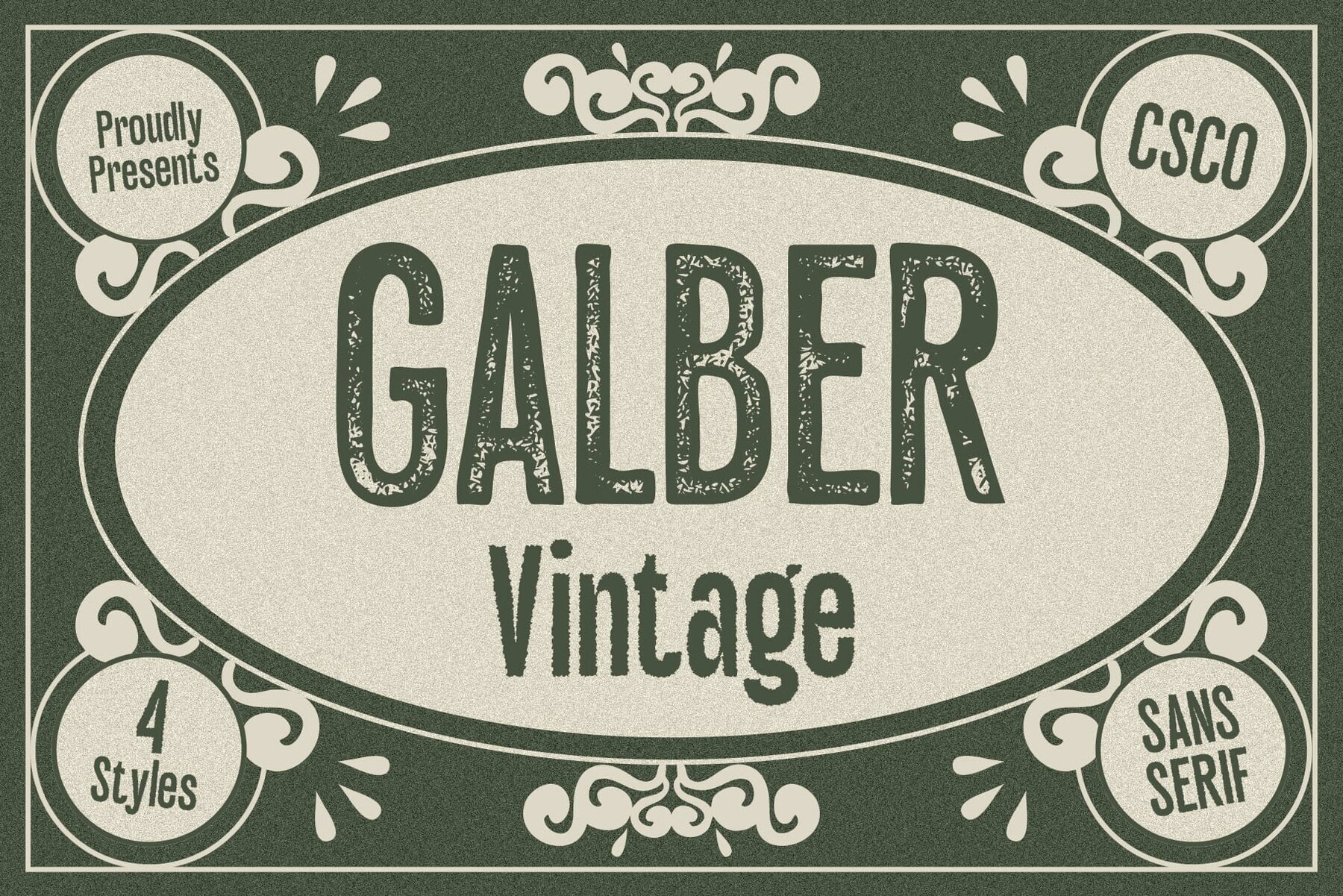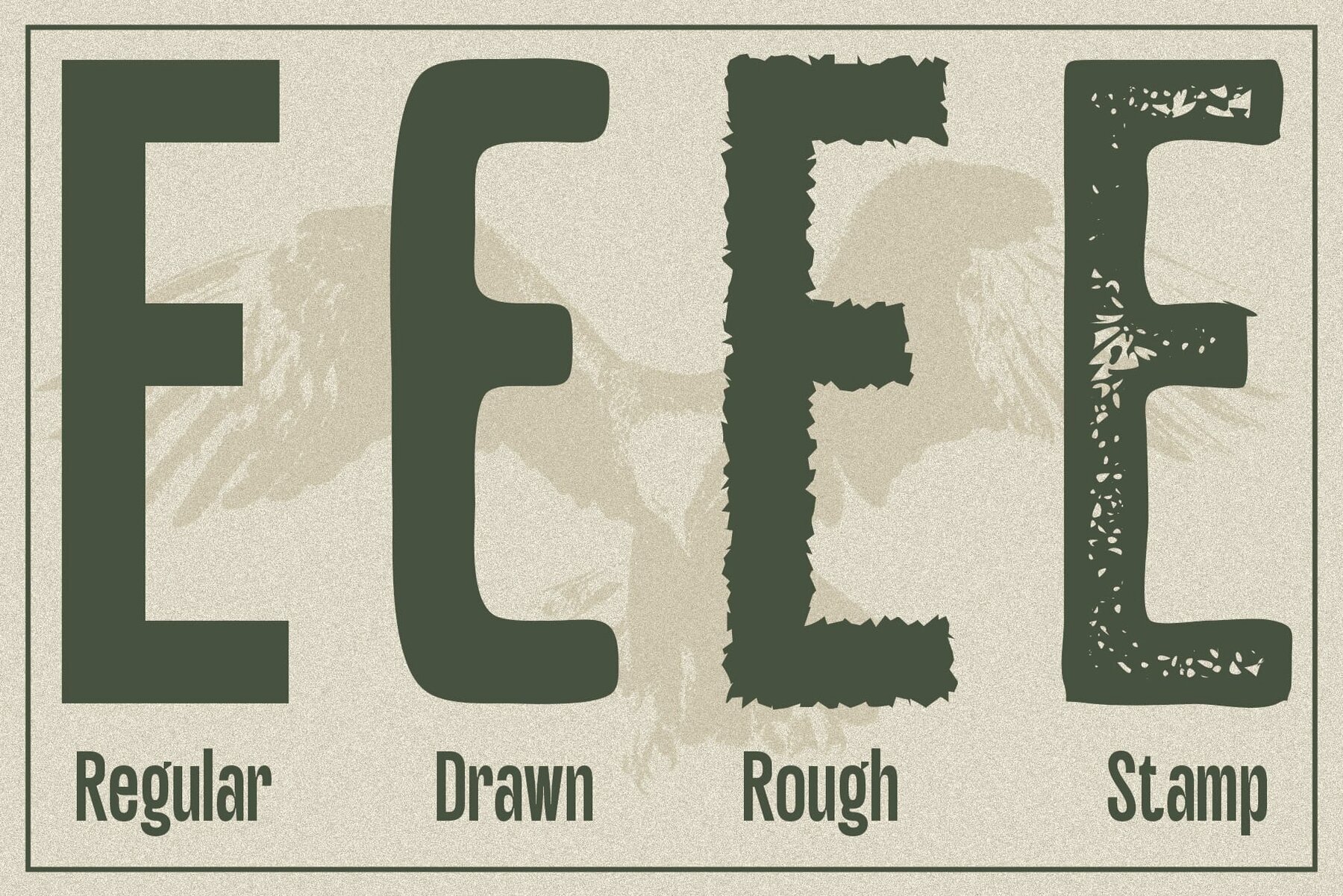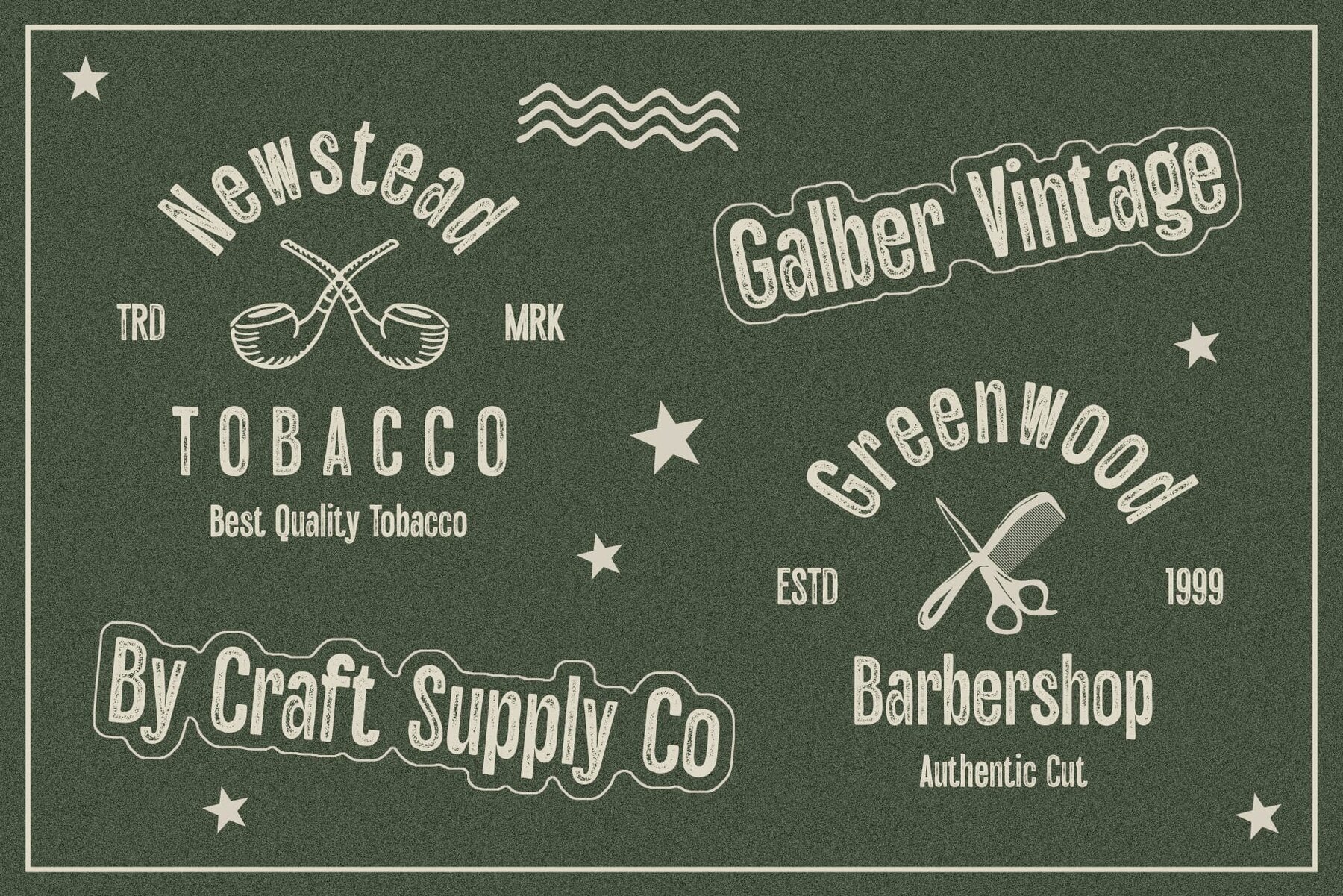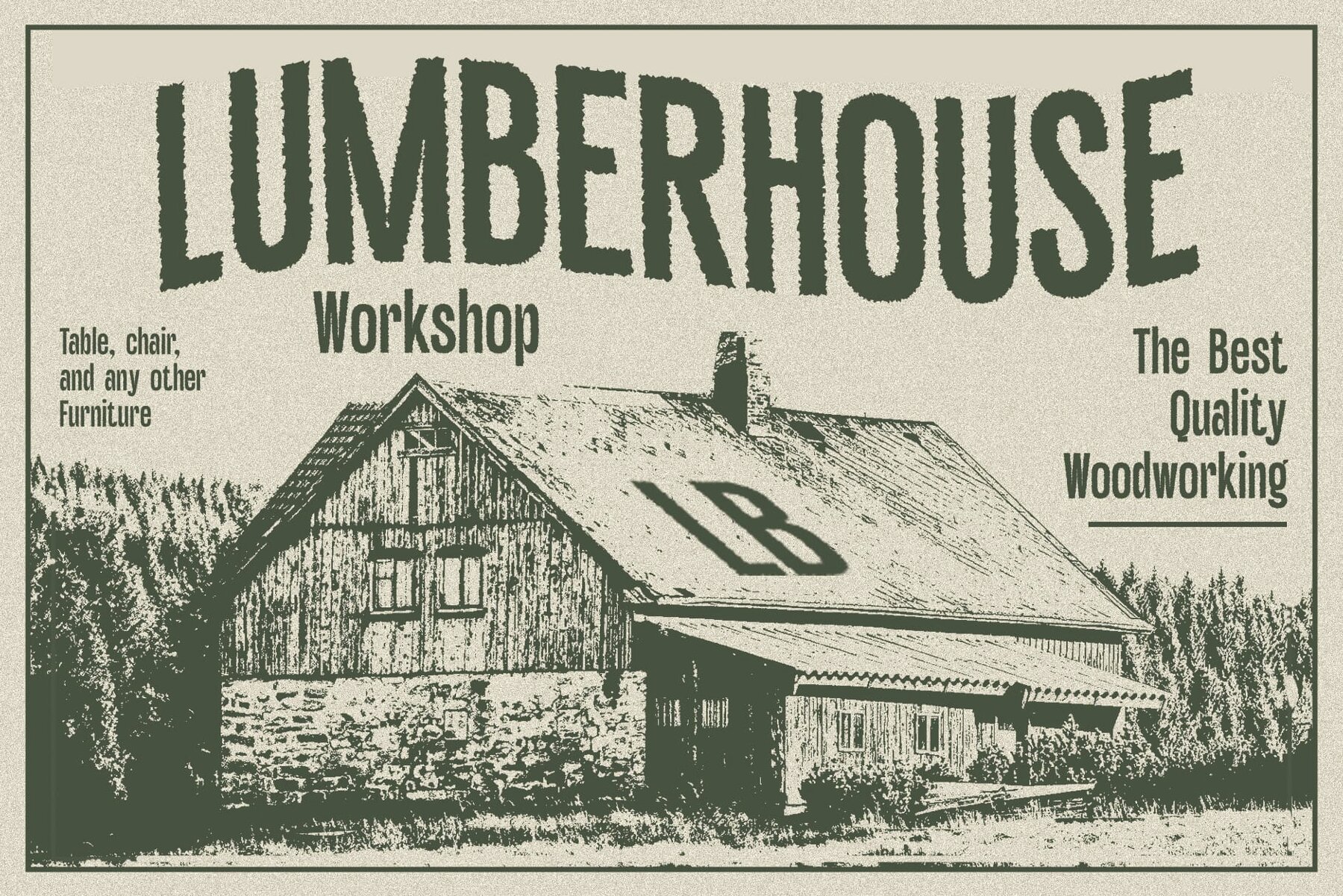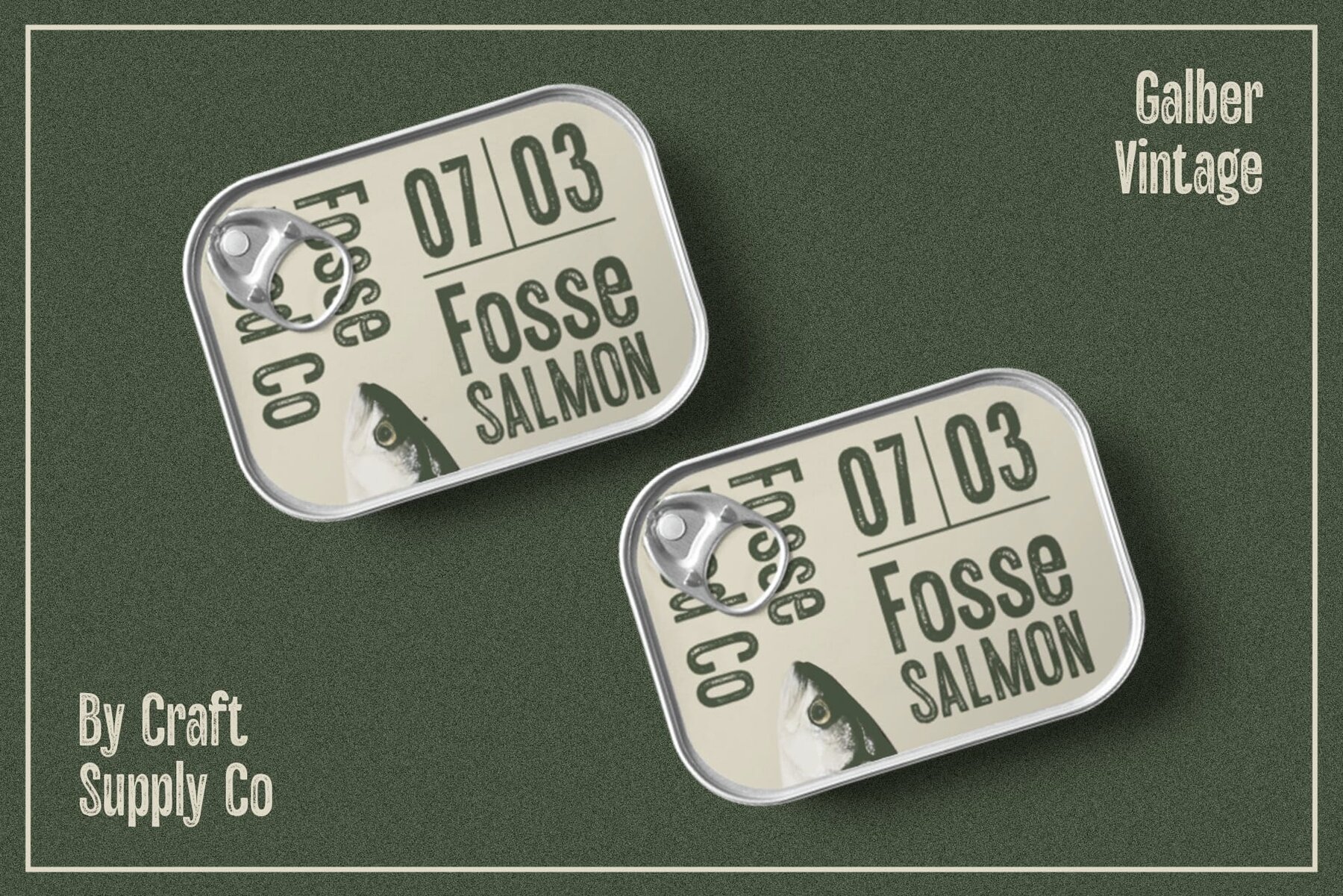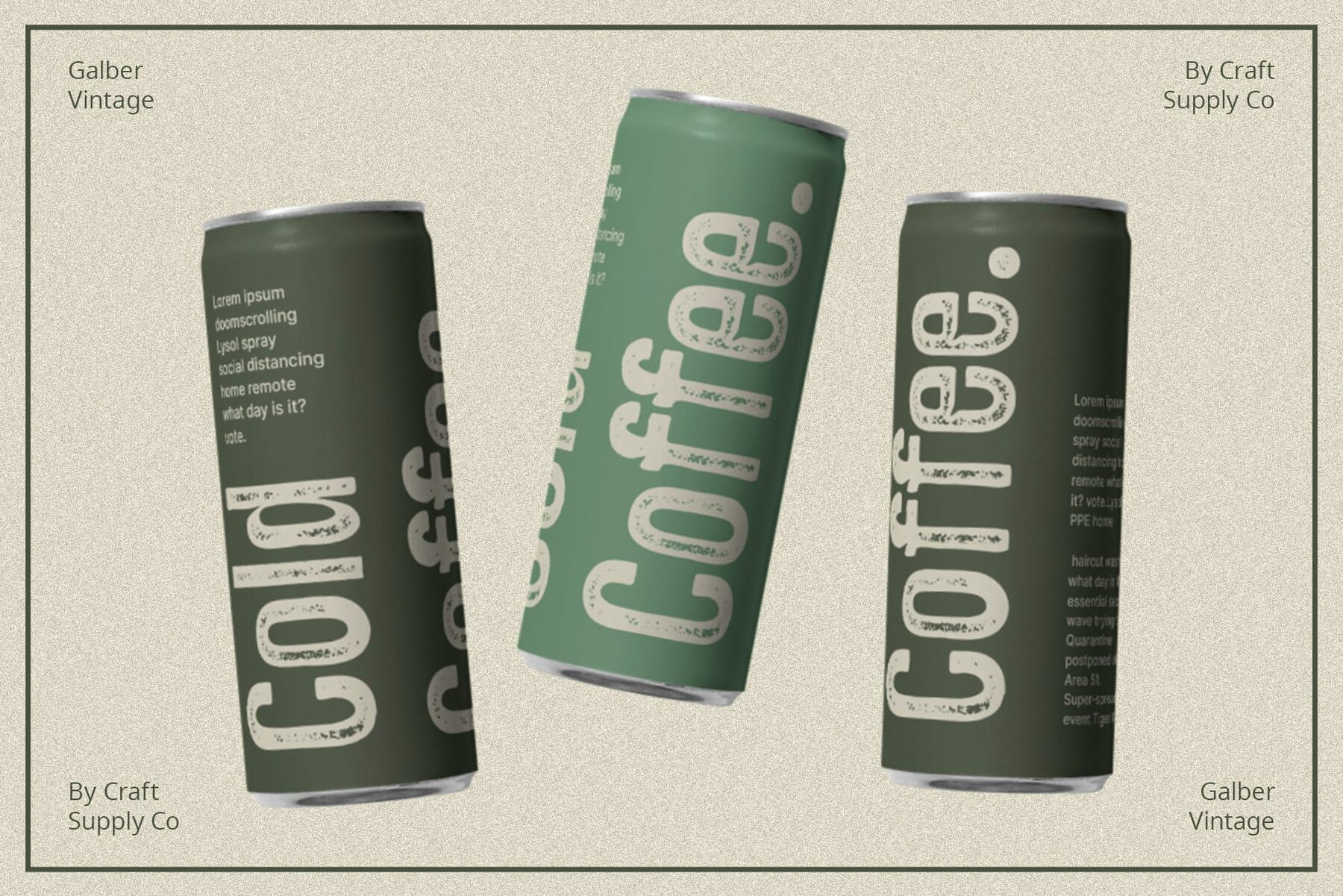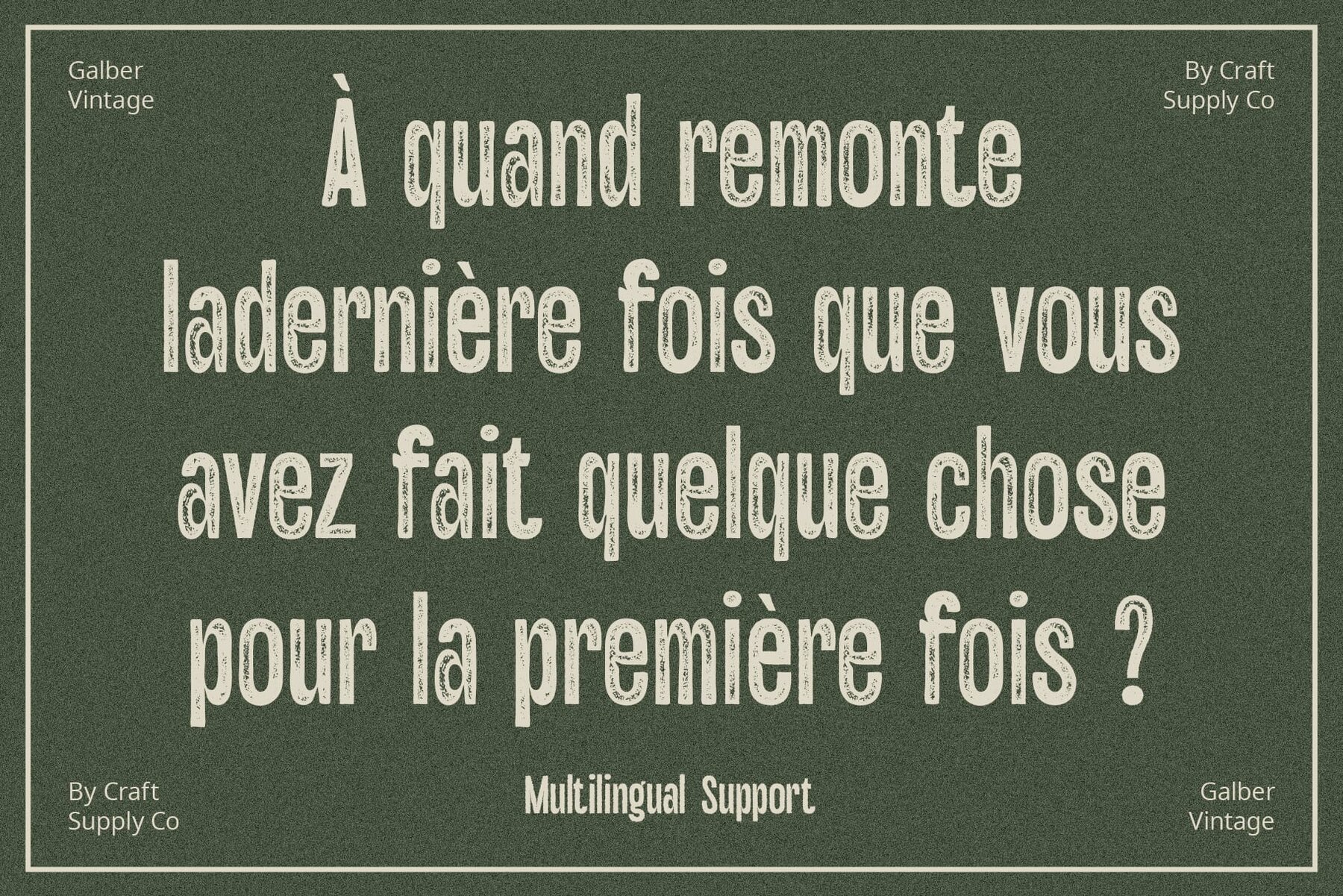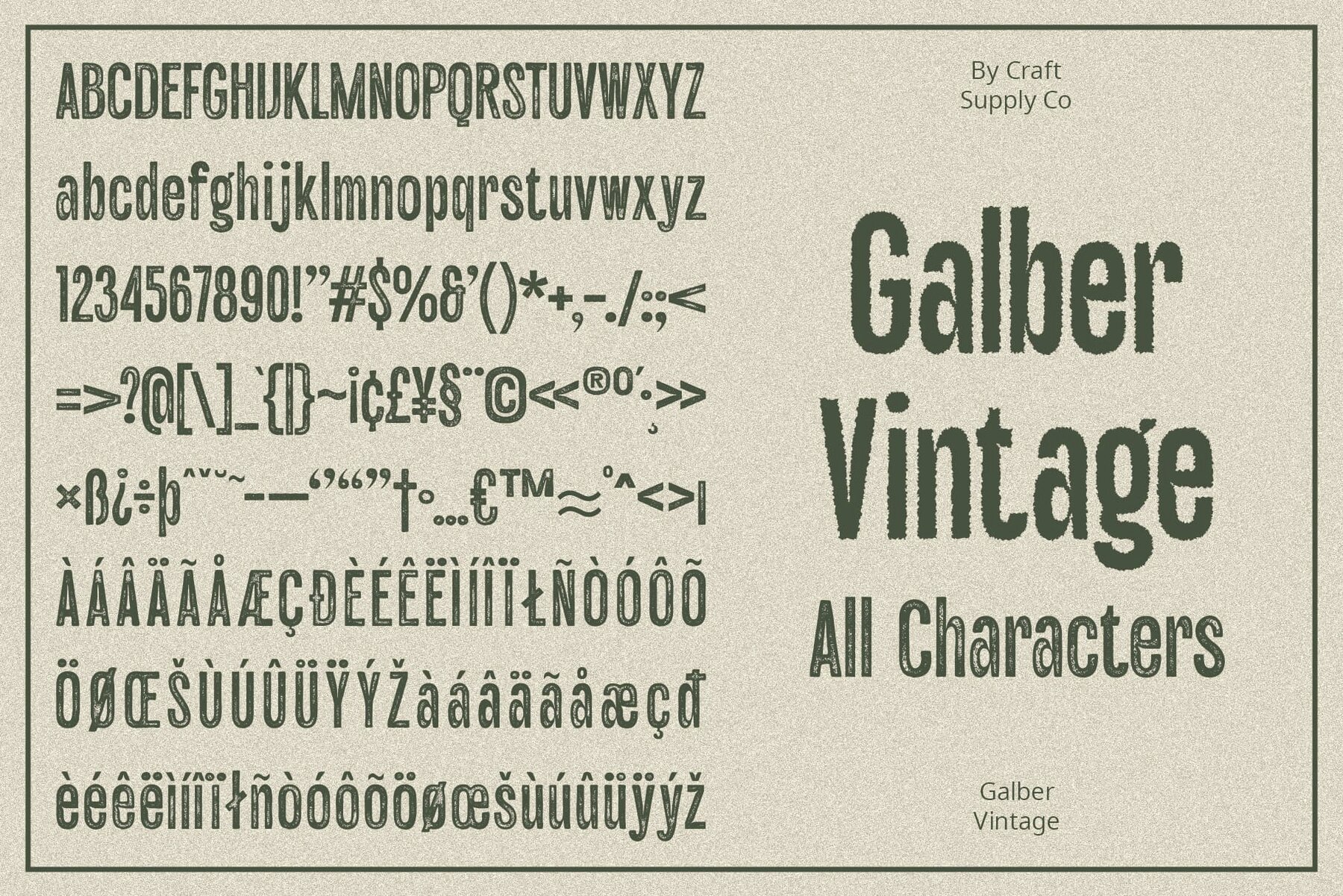
Galber Vintage Font
Timeless Appeal: Galber Vintage, a sans-serif font, exudes a timeless charm reminiscent of vintage aesthetics. Its design echoes the classic appeal of bygone eras. Rustic Elegance: With a vintage stamp effect, each letter in Galber Vintage carries a rustic elegance, adding a touch of authenticity to your designs. The rough texture evokes a sense of handcrafted beauty. Hand-Drawn Authenticity: Embrace the artistry of hand-drawn elements with Galber Vintage. The font captures the authenticity of handmade designs, making it ideal for projects that seek a personalized, artisanal touch. Versatile Vintage Vibe: Whether you're creating retro-inspired logos, labels, or posters, Galber Vintage adapts effortlessly. Its vintage charm breathes life into your projects, infusing them with a distinct, nostalgic vibe. Conclusion: In essence, Galber Vintage is more than a font; it's a journey into the past. With its timeless appeal, rustic elegance, hand-drawn authenticity, and versatile vintage vibe, this font becomes a valuable tool for designers aiming to convey a sense of nostalgia and authenticity in their projects. No specialized software is needed to utilize this typeface. For any inquiries or assistance, please don't hesitate to get in touch. We appreciate your support in making your creative projects shine! Best regards, Craft Supply Co.Galber Vintage: Nostalgic Charm in Every Letter